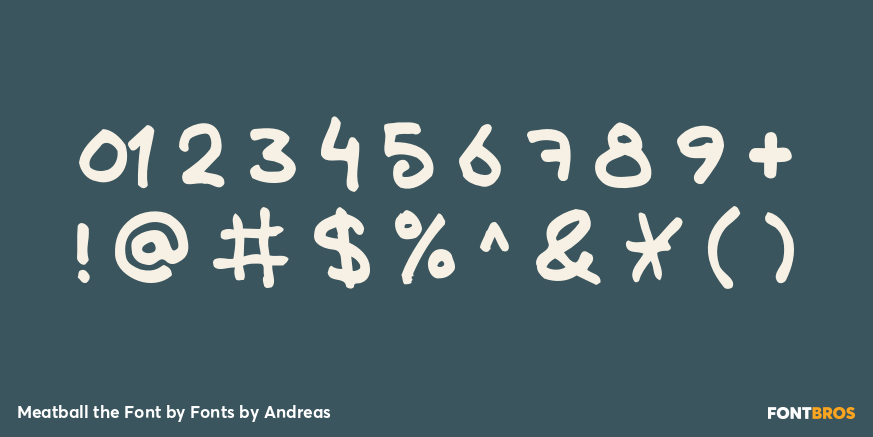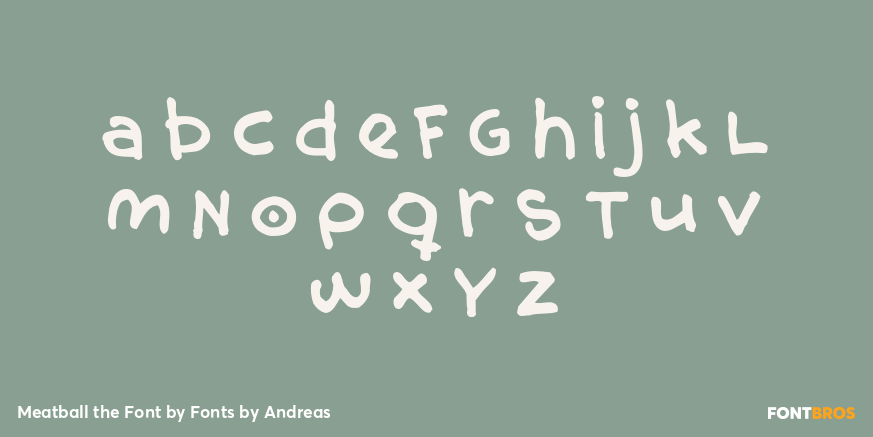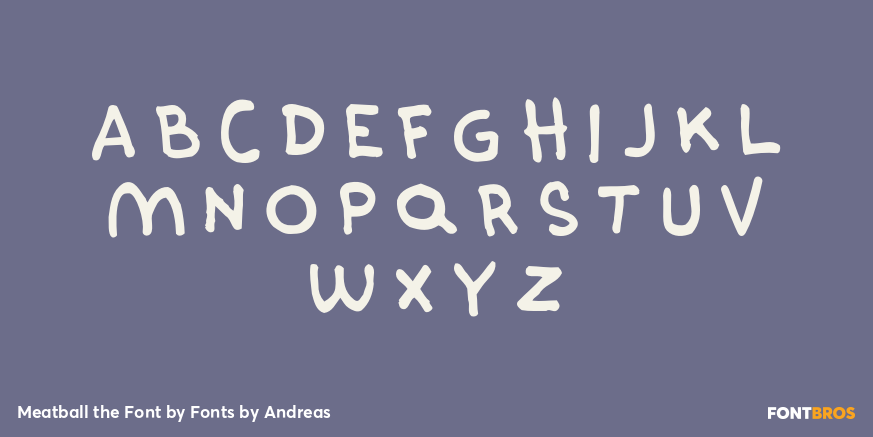
Meatball the Font
Font Family by Fonts by Andreas
Meatball the Font is a playful, hand-drawn display style with a bold, rounded look and an easygoing personality. Its smooth curves and cartoonish, slightly quirky feel make it read as friendly, casual, and approachable right away.
With its informal energy and childlike charm, this single-style family is a natural fit for fun branding, posters, playful packaging, social graphics, and other decorative display work that needs a warm, upbeat voice. It also works well anywhere you want lettering to feel relaxed, expressive, and a little wacky without losing clarity.
Created by Fonts by Andreas, it brings together fun, friendliness, and a handwritten spirit in a compact, characterful font choice.